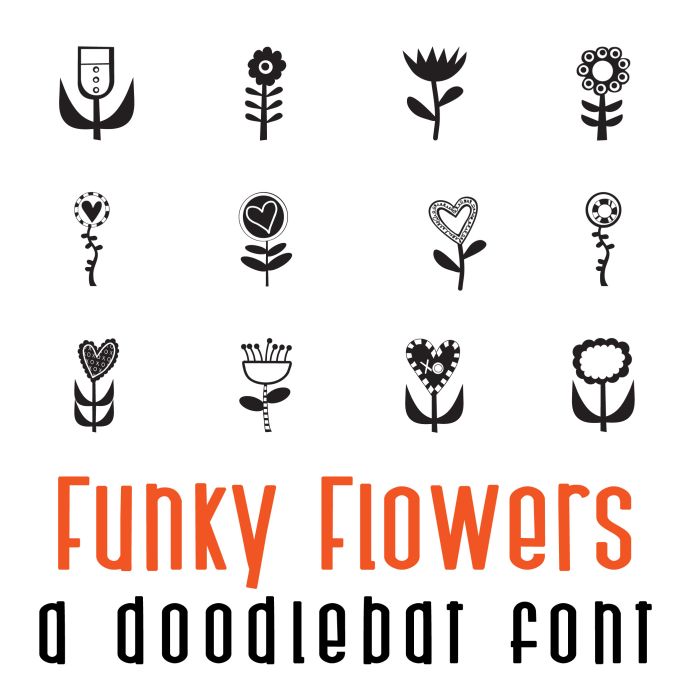
Funky Flowers Doodlebat Font
This doodlebat font features 26 funky florals! Perfect for classrooms, teachers, gifts, decor, scrap book pages, planner stickers and more!